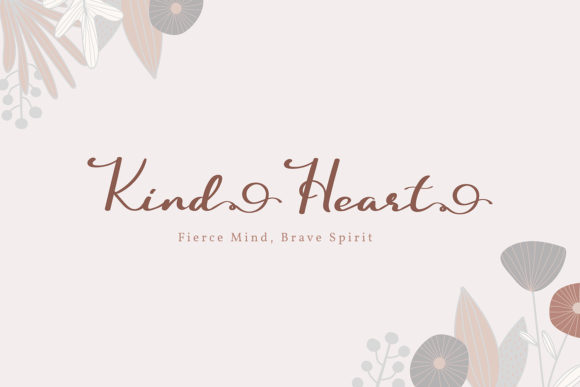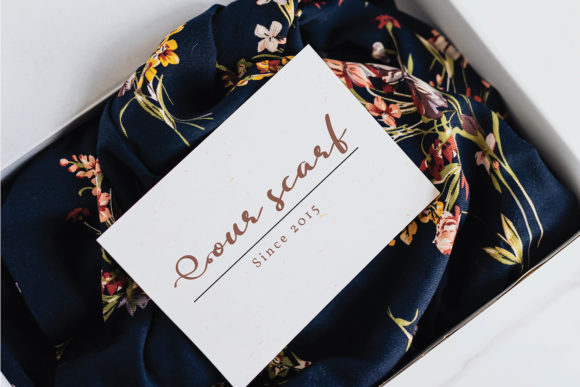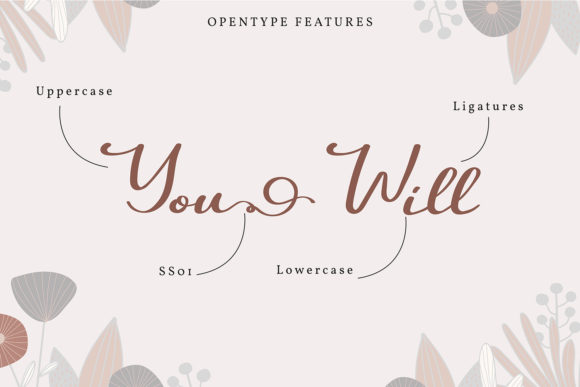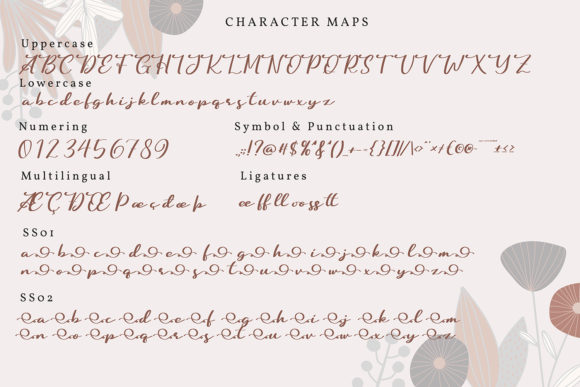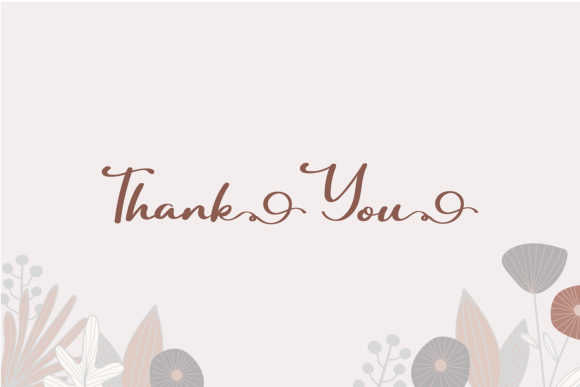
Introducing Filanttica Font: Elevate Your Designs with Elegance and Sophistication
Are you a designer or crafter looking for a font that exudes elegance and sophistication? Look no further than Filanttica Font, a stunning cursive and handwritten font that’s perfect for adding a personalized touch to your designs. In this article, we’ll dive into the world of Filanttica Font, exploring its features, benefits, and uses, as well as provide tips and inspiration for incorporating it into your creative projects.
A Font that Speaks Elegance and Sophistication
Filanttica Font is a beautiful, cursive handwritten font that’s designed to make your designs stand out. Its elegant and refined appearance makes it perfect for a variety of applications, including wedding invitations, thank you cards, quotes, greeting cards, logos, business cards, and more. Whether you’re creating a romantic wedding invitation or a professional business card, Filanttica Font is sure to impress.
What Makes Filanttica Font Special?
So, what sets Filanttica Font apart from other fonts? Here are a few features that make it a standout:
- Cursive and Handwritten Style: Filanttica Font boasts a beautiful, flowing cursive script that’s perfect for adding a touch of elegance to your designs.
- PUA Encoded: This font is PUA (Private Use Area) encoded, which means you can access all of the glyphs and swashes with ease. This makes it simple to customize your designs and add unique flourishes.
- Versatile: Filanttica Font is incredibly versatile, making it suitable for a wide range of applications, from wedding invitations to business cards.
Uses for Filanttica Font
Filanttica Font is perfect for a variety of design projects, including:
- Wedding Invitations: Add a touch of romance and elegance to your wedding invitations with Filanttica Font.
- Thank You Cards: Show your appreciation with beautifully designed thank you cards featuring Filanttica Font.
- Quotes and Posters: Create stunning quotes and posters with Filanttica Font, perfect for decorating your home or office.
- Greeting Cards: Design beautiful greeting cards for special occasions, such as birthdays, anniversaries, and holidays.
- Logos and Branding: Use Filanttica Font to create a unique and memorable logo for your business or brand.
- Business Cards: Stand out from the crowd with beautifully designed business cards featuring Filanttica Font.
Tips for Using Filanttica Font
Here are a few tips for getting the most out of Filanttica Font:
- Experiment with Swashes: Take advantage of the font’s PUA encoding to add unique swashes and flourishes to your designs.
- Mix and Match: Combine Filanttica Font with other fonts to create a unique and eye-catching design.
- Play with Color: Experiment with different colors and textures to add depth and interest to your designs.
Need some inspiration for your designs? Here are a few ideas to get you started:
- Wedding Suite: Create a beautiful wedding suite featuring Filanttica Font, including invitations, thank you cards, and wedding stationery.
- Branding and Packaging: Use Filanttica Font to create a cohesive brand identity, including logos, business cards, and packaging.
- Social Media Graphics: Design stunning social media graphics featuring Filanttica Font, perfect for sharing quotes, promotions, and more.
Filanttica Font is a stunning cursive and handwritten font that’s perfect for adding a touch of elegance and sophistication to your designs. With its PUA encoding, versatile style, and wide range of uses, it’s a must-have for designers and crafters. Whether you’re creating wedding invitations, business cards, or social media graphics, Filanttica Font is sure to impress. So why wait? Download Filanttica Font today and start elevating your designs to the next level!